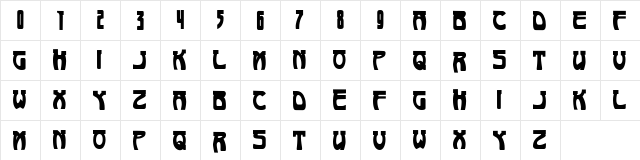
NouveauQuatre Regular
Design Context for NouveauQuatre Typeface
NouveauQuatre is a composed and adaptable typeface that performs quietly and consistently across a wide range of design contexts.